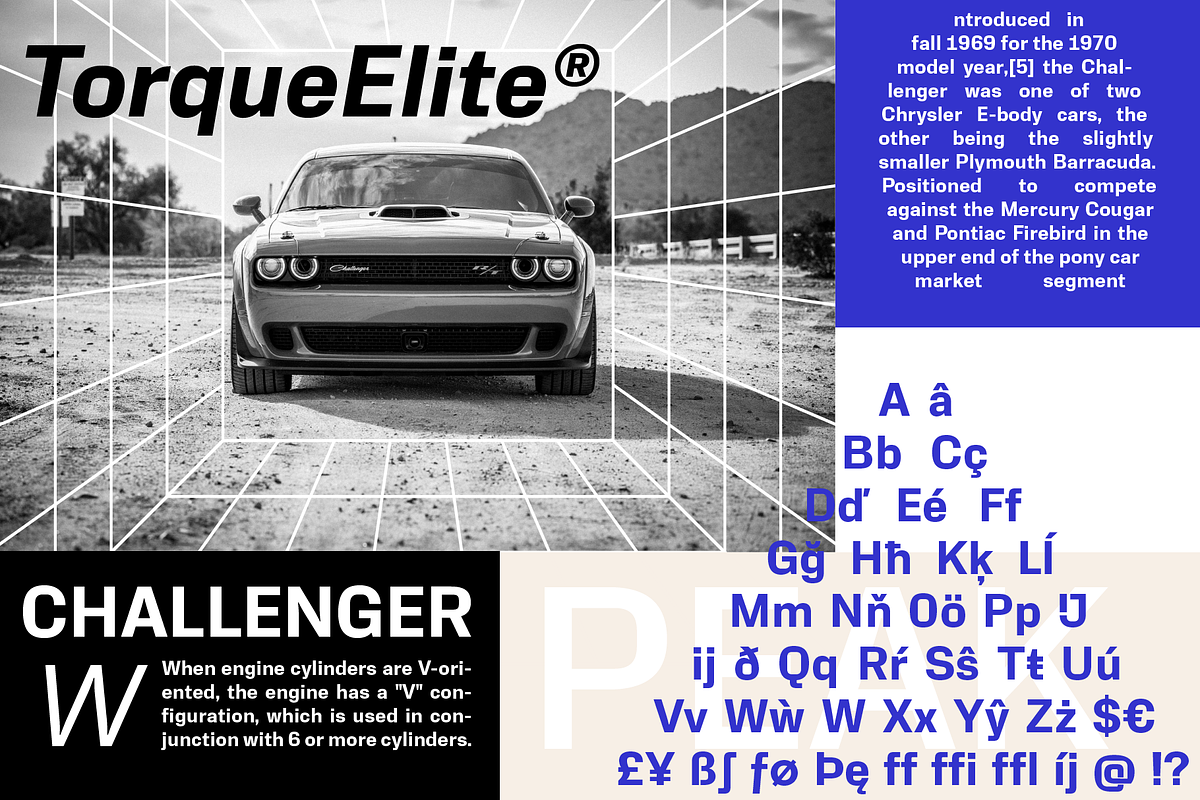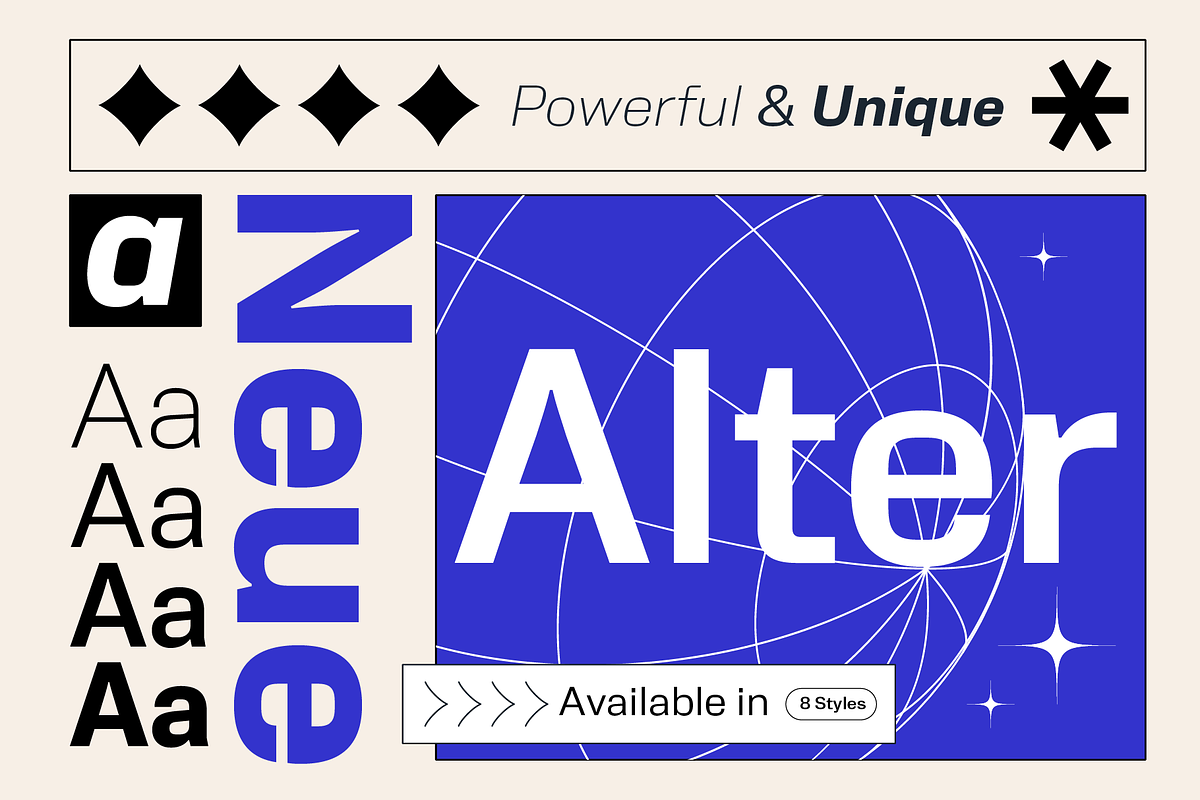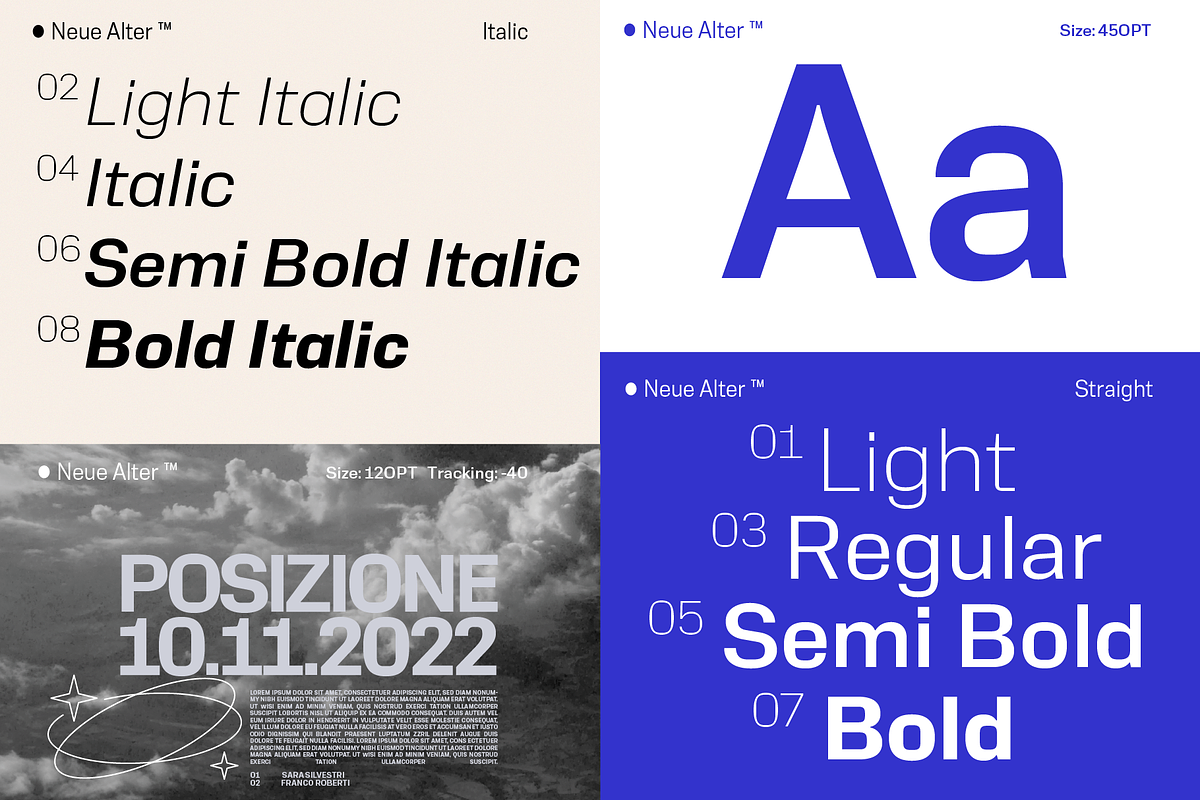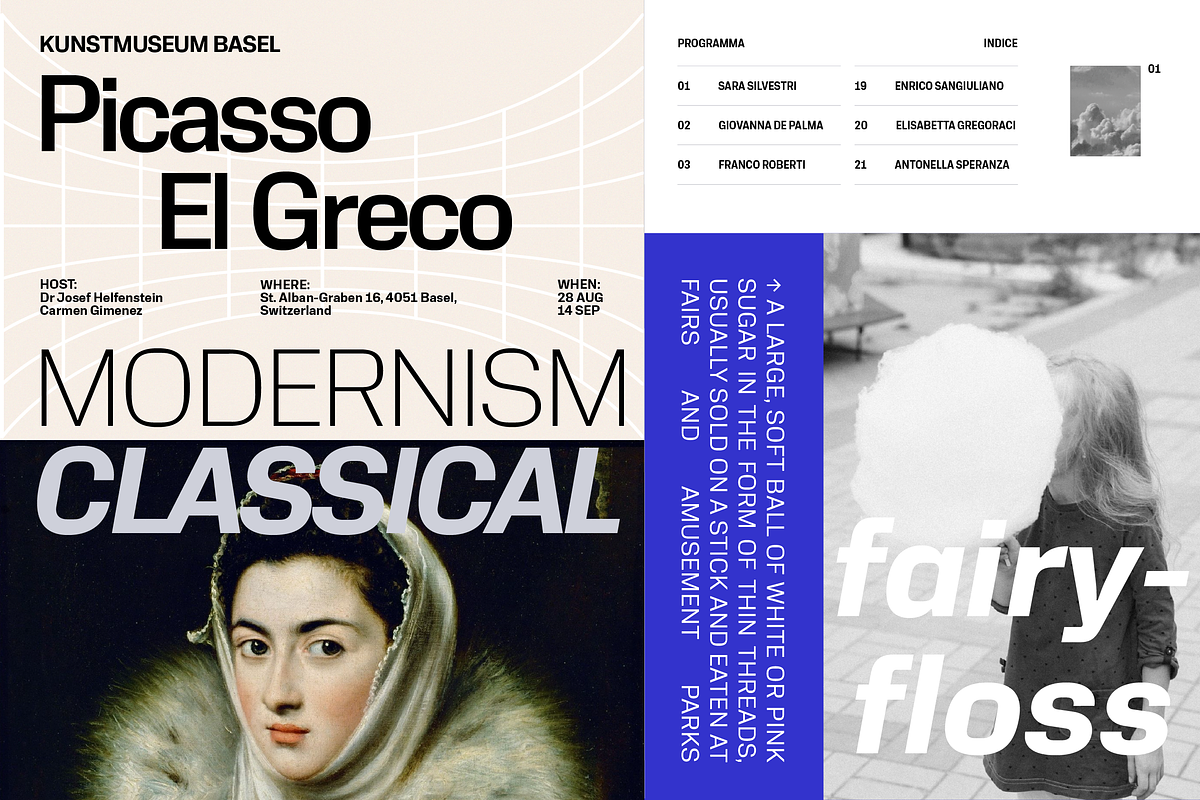
Neue Alter Family
Neue Alter is a well-balanced font family it was designed with focus on legibility, lively details and a kind of a rough but pleasant texture.
Neue Alter contains 4 weights with matching italics :The regular weight has a very even stroke contrast which provides for great legibility. The light and semibold weights are heavier and have a rugged texture, making them perfect for short headlines or paragraph text setting.
The Neue Alter font family gives your text a unique, powerful style. It's perfectly proportioned and is an excellent choice for captions, navigation systems, and anything that requires concise, accurate language.